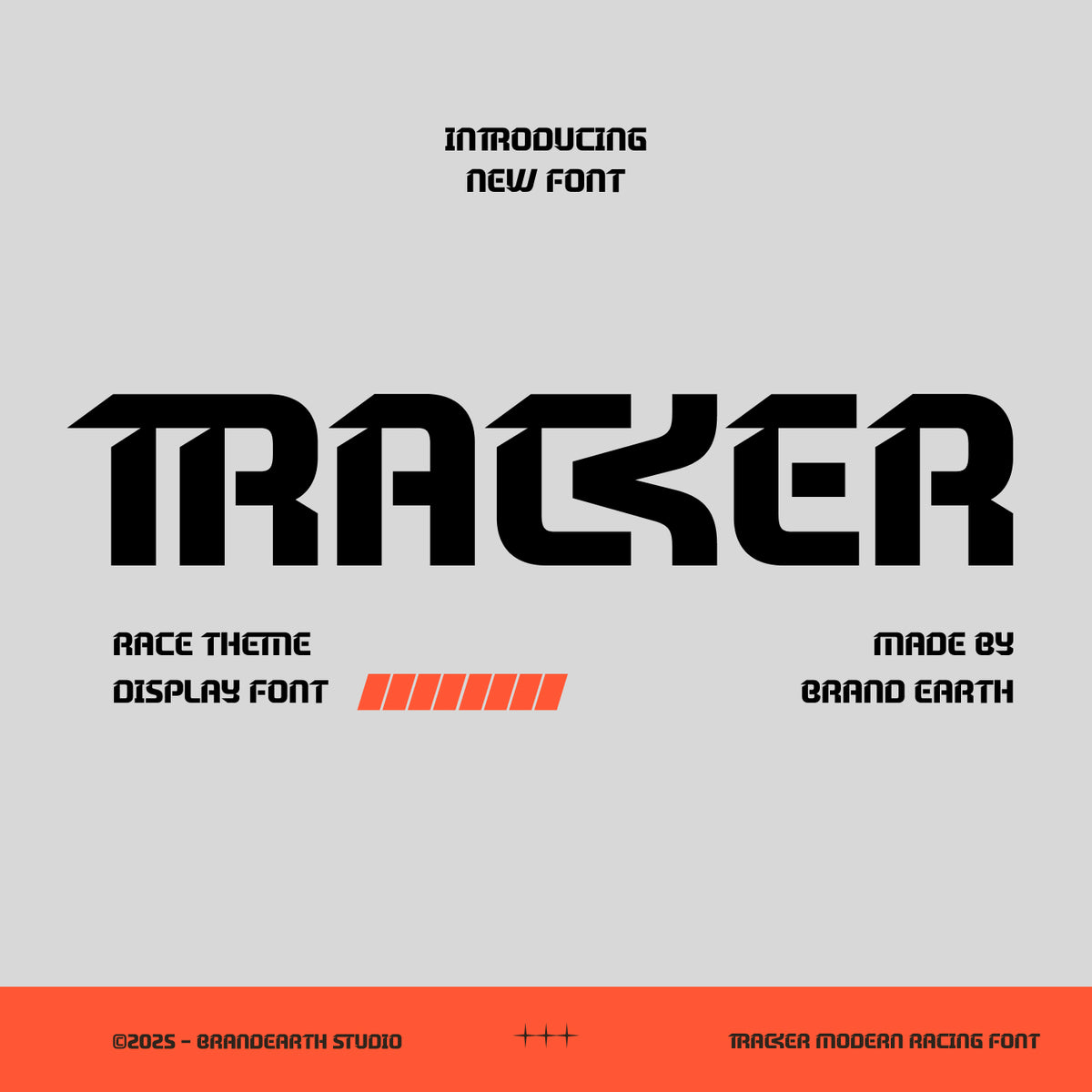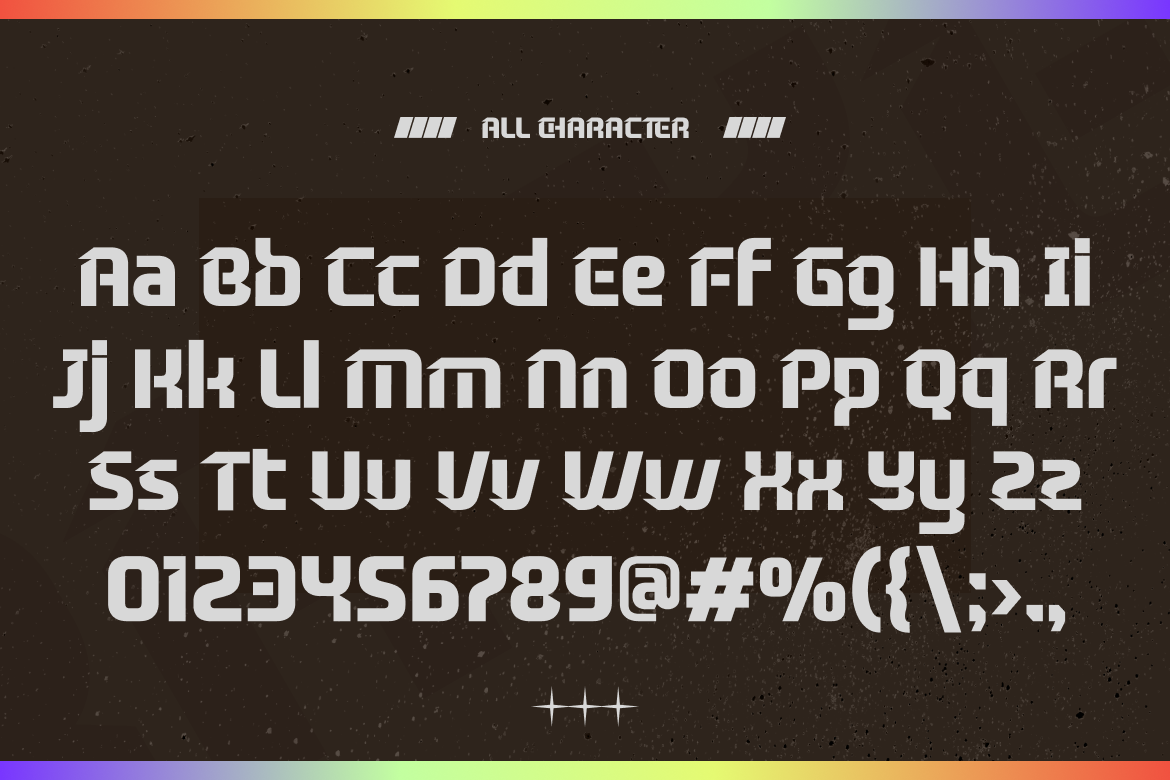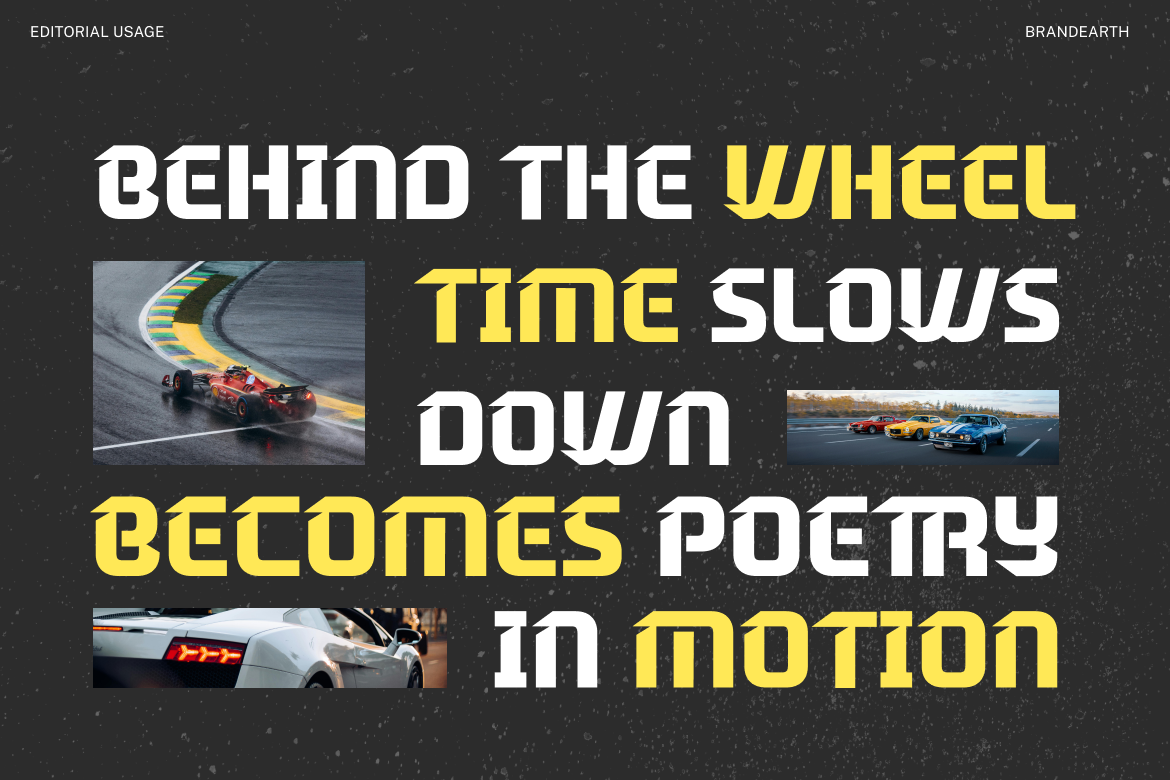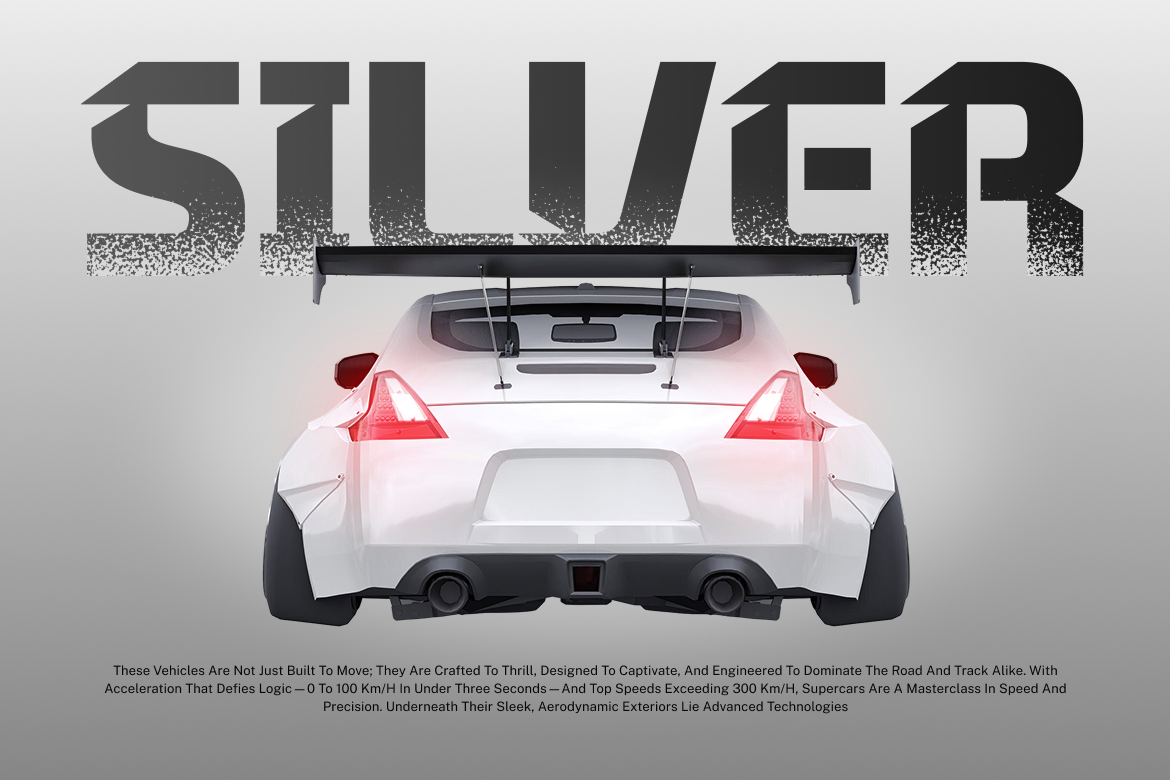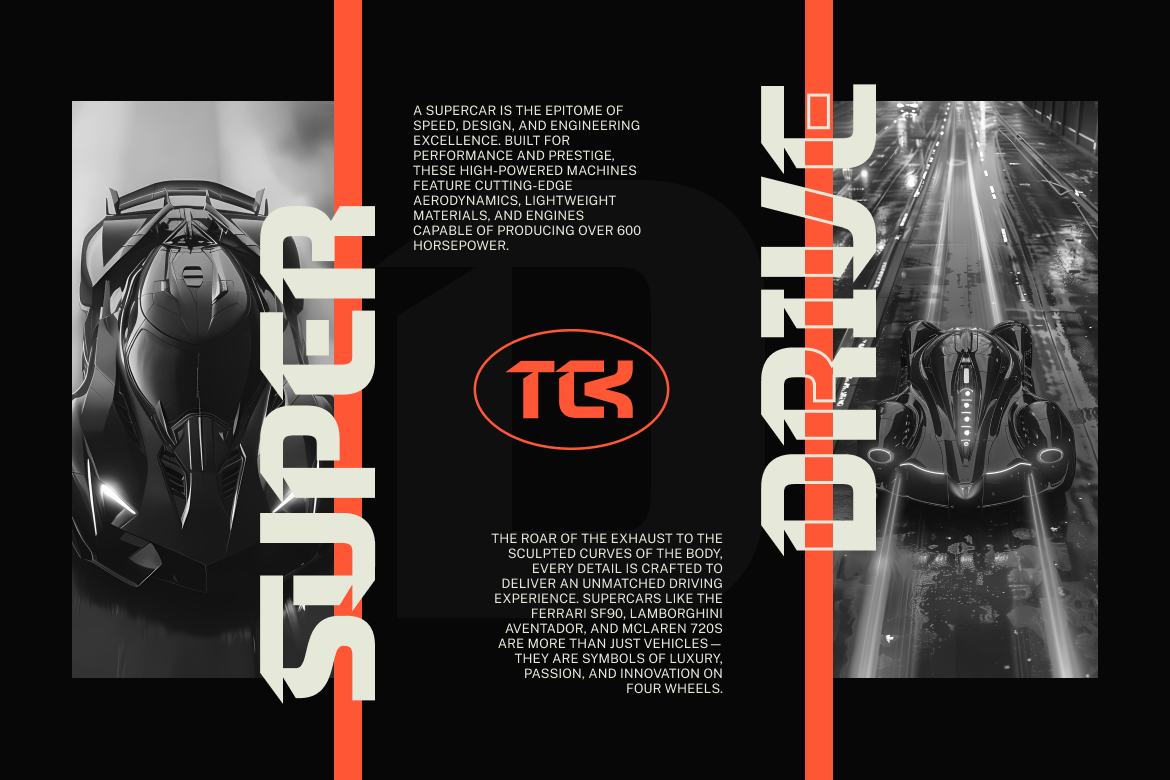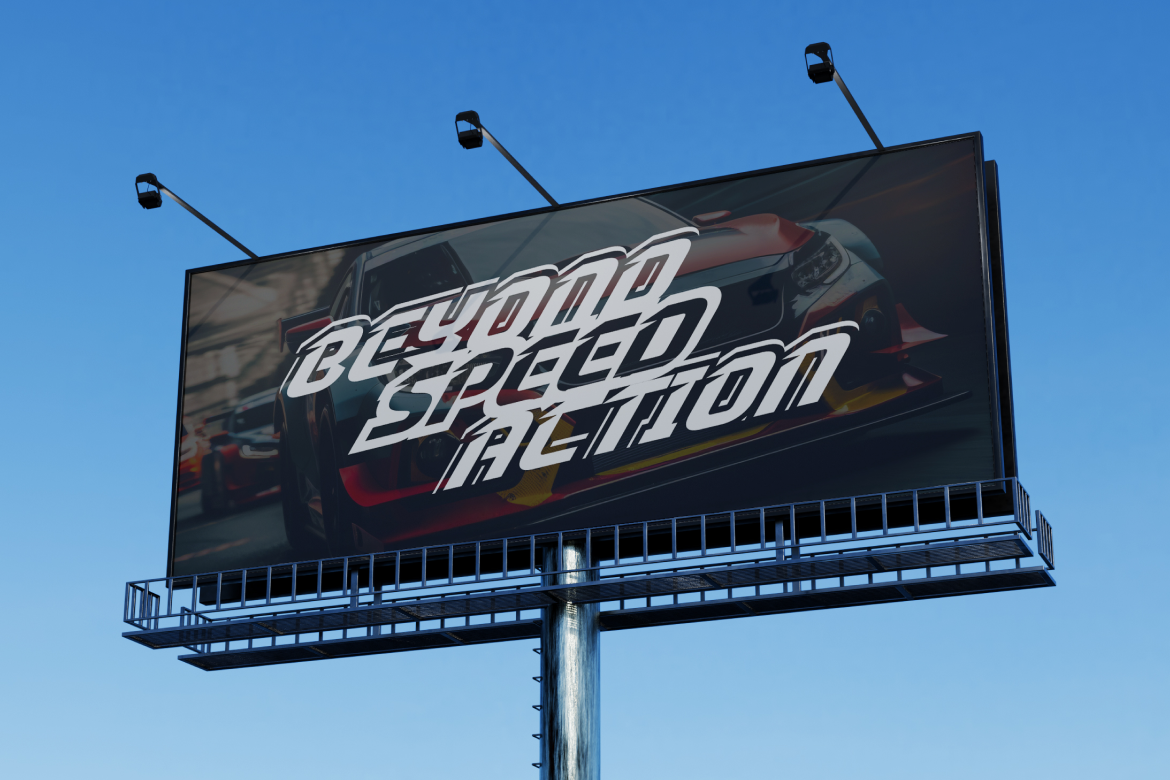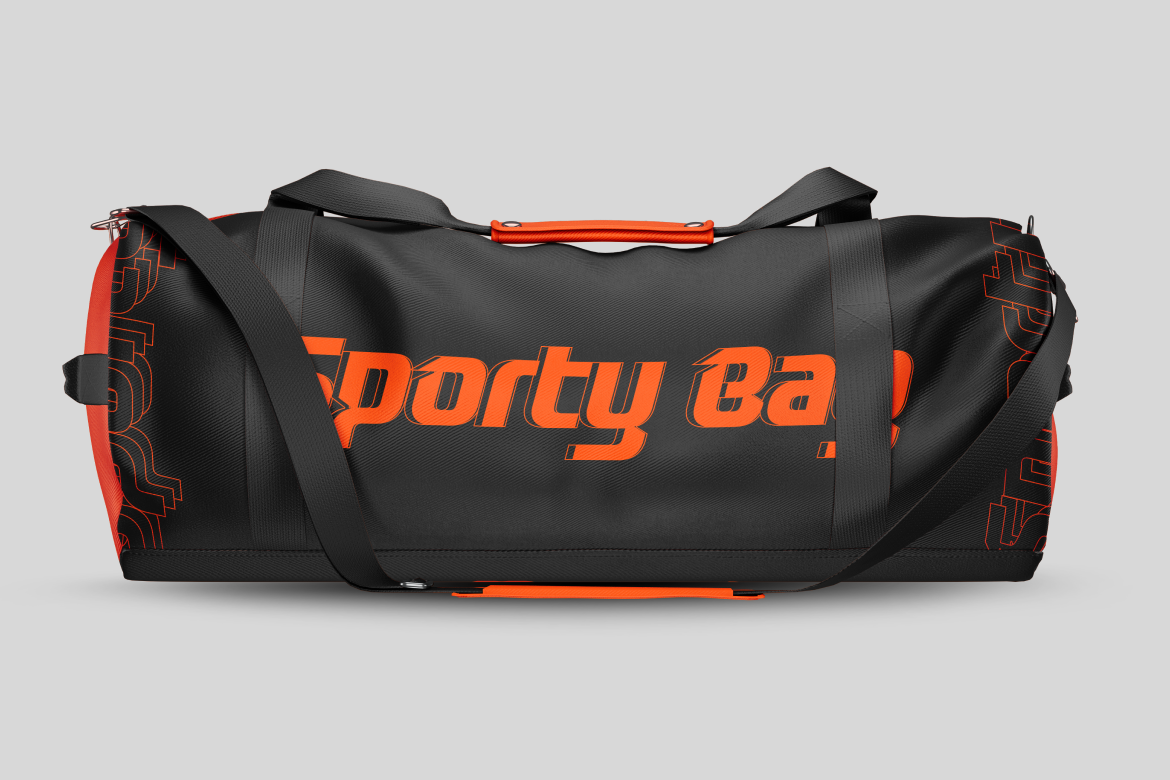
Tracker Modern Racing Font
Tracker is a bold racing-inspired display typeface designed with sharp edges and dynamic cuts that capture speed, power, and motion. With its futuristic geometric design and industrial feel, Tracker is perfect for motorsport branding, esports logos, automotive advertising, and high-energy poster titles. The font includes uppercase, lowercase, numerals, punctuation, and symbols, ensuring versatility for both print and digital use. Its modern condensed style gives a strong presence while maintaining legibility, making it a go-to choice for racing events, technology visuals, and modern bold graphics.
Tracker is a bold, condensed display typeface featuring sharp edges and geometric cuts, available in TTF, OTF, and WOFF formats. It includes uppercase and lowercase letters, numerals, and punctuation.